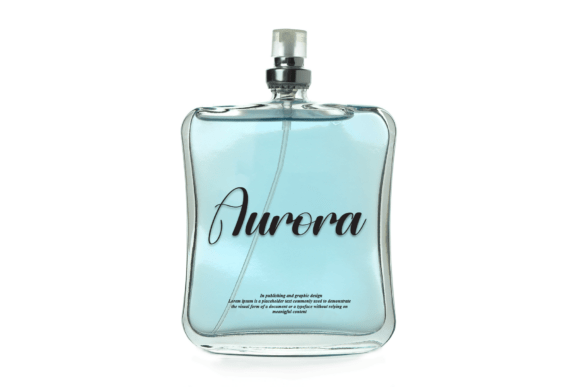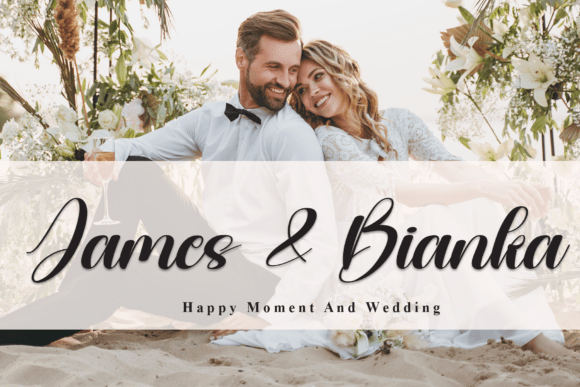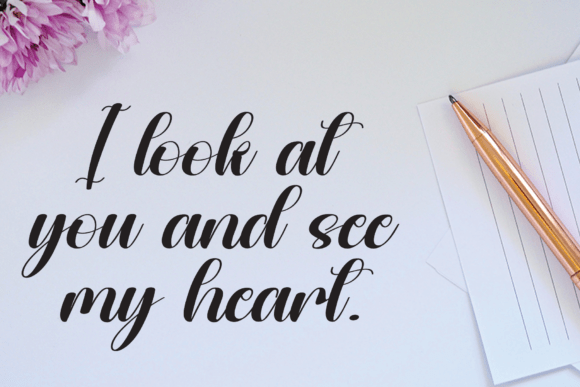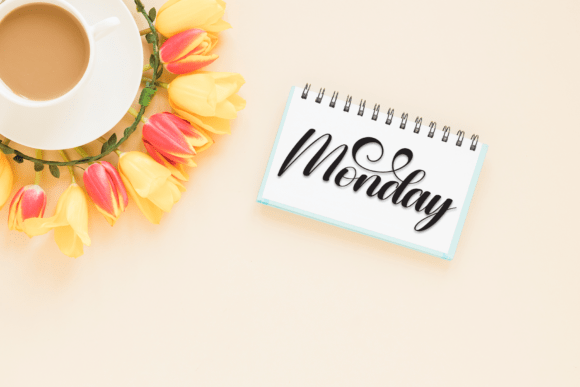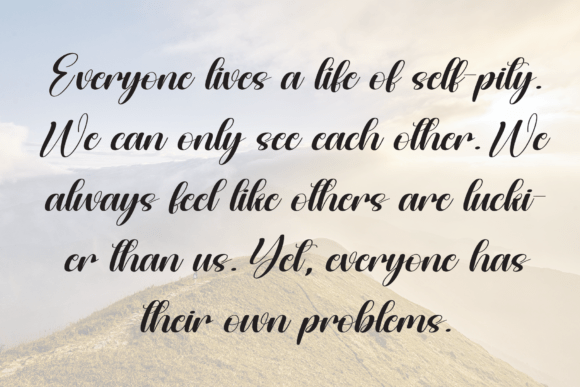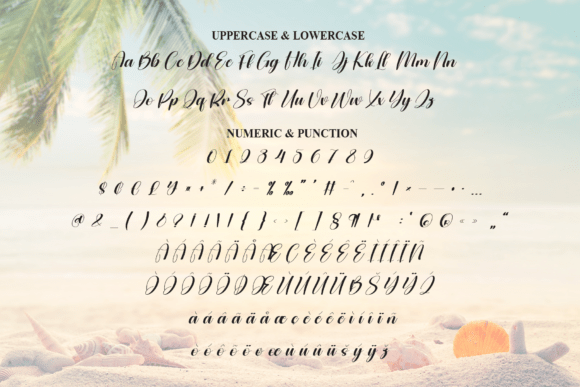
The Charm of Beach Font: Elevating Your Designs with a Touch of Whimsy
As designers, we’ve all been there – stuck in a creative rut, searching for the perfect font to bring our project to life. I recall working on a wedding invitation design, determined to capture the couple’s playful and romantic vibe. After hours of scrolling through font libraries, I stumbled upon Beach Font, and it was love at first sight! In this article, I’ll share my experience with this charmingly charismatic handwritten display font and explore its features, uses, and alternatives.
A Personal Review: What I Love About Beach Font
Beach Font has become a staple in my design toolkit, and for good reason. Here are some of the things I adore about it:
- ✨ Friendly and warm tone: Beach Font exudes a sense of approachability and kindness, making it perfect for crafting heartwarming notes and wedding invitations.
- ✅ Elegant yet playful: This font strikes the perfect balance between sophistication and whimsy, adding a touch of personality to any design.
- 🎉 Versatile: Beach Font can be used for a wide range of projects, from formal events to casual gatherings.
While Beach Font is a stunning addition to any design, there are a few things to keep in mind:
- ⚠️ Limited use in formal or corporate settings: Beach Font’s playful nature may not be suitable for more formal or professional projects.
- 🤔 Some characters may require manual kerning: While the font is generally well-spaced, some character combinations may require manual adjustment for optimal results.
The Story Behind Beach Font
Beach Font was designed with the intention of capturing the carefree spirit of a beachside stroll. Its creator aimed to craft a font that would evoke feelings of warmth, friendship, and joy. The result is a charmingly charismatic font that’s perfect for adding a touch of personality to your designs.
| Font Name | Beach Font |
| What type of projects is Beach Font best suited for? | Beach Font is ideal for creative projects, such as wedding invitations, social media graphics, and party decorations. |
| Is Beach Font available in different weights or styles? | Beach Font is available in a single weight, but its versatility and range of OpenType features make it suitable for various design applications. |